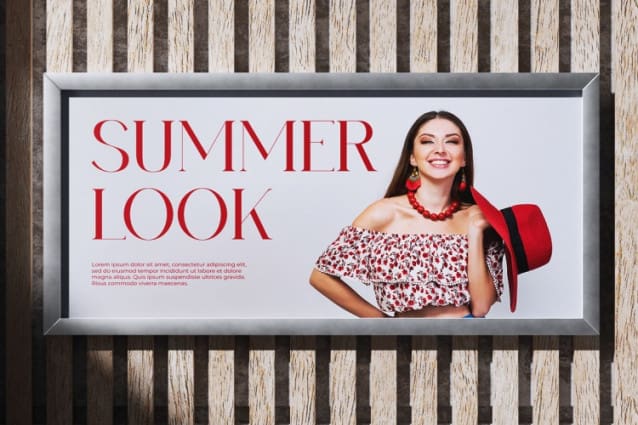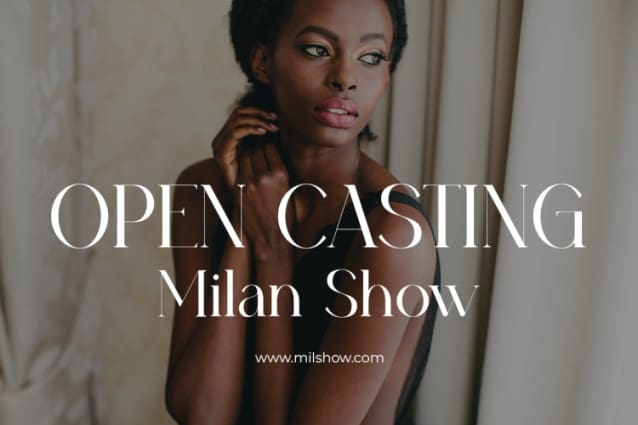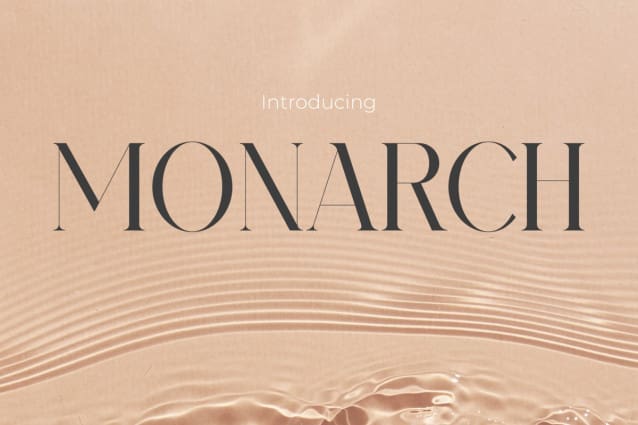
Monarch Font
Monarch Font – Essence of Elegance for Women’s Brands. With captivating grace and finesse, Font Monarch emerges as the perfect choice to exude beauty and luxury within brands and products associated with women. Crafted with meticulous attention to detail, each letter of this font offers an unmatched elegant impression. Its flowing and gentle typography lends a captivating feminine touch, while the clarity and precision in its design signify professionalism and excellence. Monarch Font delivers a sense of class and luxury, effectively communicating a high-quality brand image and captivating the hearts of every observer. From logos to packaging, Font Monarch elevates your brand to new heights with an unforgettable charm and allure.
Perfection is the key in the industry, and Font Monarch presents unparalleled visual harmony for your brand. With its ability to capture the essence of beauty and elegance, this font leaves a touching and enticing impression on every beholder. Featuring clean lines and balanced proportions, Font Monarch offers an undeniable allure, making it the ideal choice for women’s brands and skincare products. Each character exudes undeniable grandeur, creating a visual identity that is truly unforgettable for your brand. From brochures to websites, Monarch Font will transport your brand to the pinnacle of elegance and unmatched sophistication.